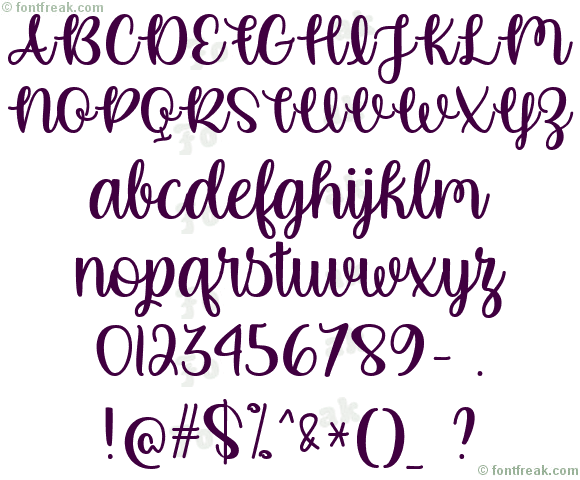
Rainbow in June
The Rainbow in June font by Misti Hammers is a delightful script font that beautifully captures the essence of joy and warmth. With its flowing, cursive design, this typeface features a smooth stroke weight that varies subtly, lending a sense of elegance and movement to the letters. The contrast between the thick and thin strokes creates a dynamic visual interest, while the spacing is thoughtfully designed to enhance legibility without sacrificing style. Decorative elements, such as gentle curves and whimsical flourishes, add a playful touch, making it suitable for a variety of creative projects.
This font is particularly well-suited for wedding invitations, where its romantic flair can set the tone for a special occasion. It also shines in the realm of greeting cards, where the expressive style can convey heartfelt messages. Additionally, Rainbow in June is an excellent choice for social media graphics, allowing content creators to grab attention with its vibrant charm. Small business owners can utilize this font in branding materials, such as logos and promotional flyers, to create a memorable impression.
Targeted towards graphic designers, content creators, and small business proprietors, this font offers versatility and creativity. Its unique character makes it a standout choice for anyone looking to infuse their projects with a sense of personality and warmth.
In a crowded market of typefaces, Rainbow in June font free download sets itself apart with its enchanting design and versatility. Whether you are crafting an intimate wedding invite or an eye-catching social media post, this font will elevate your work and leave a lasting impression. Embrace the joy and vibrancy of Rainbow in June for your next creative endeavor.